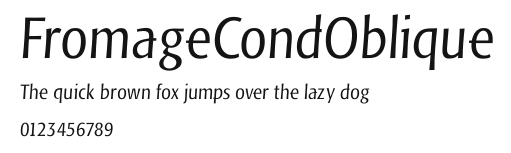
• Font Name: FromageCondOblique
• Full Font Name: FromageCondOblique
• PostScript Name: FromageCondOblique
About FromageCondOblique.ttf
FromageCondOblique.ttf is a modern, elegant sans-serif font designed for ultimate readability and visual harmony. Perfect for branding, headlines, web design, and print materials.